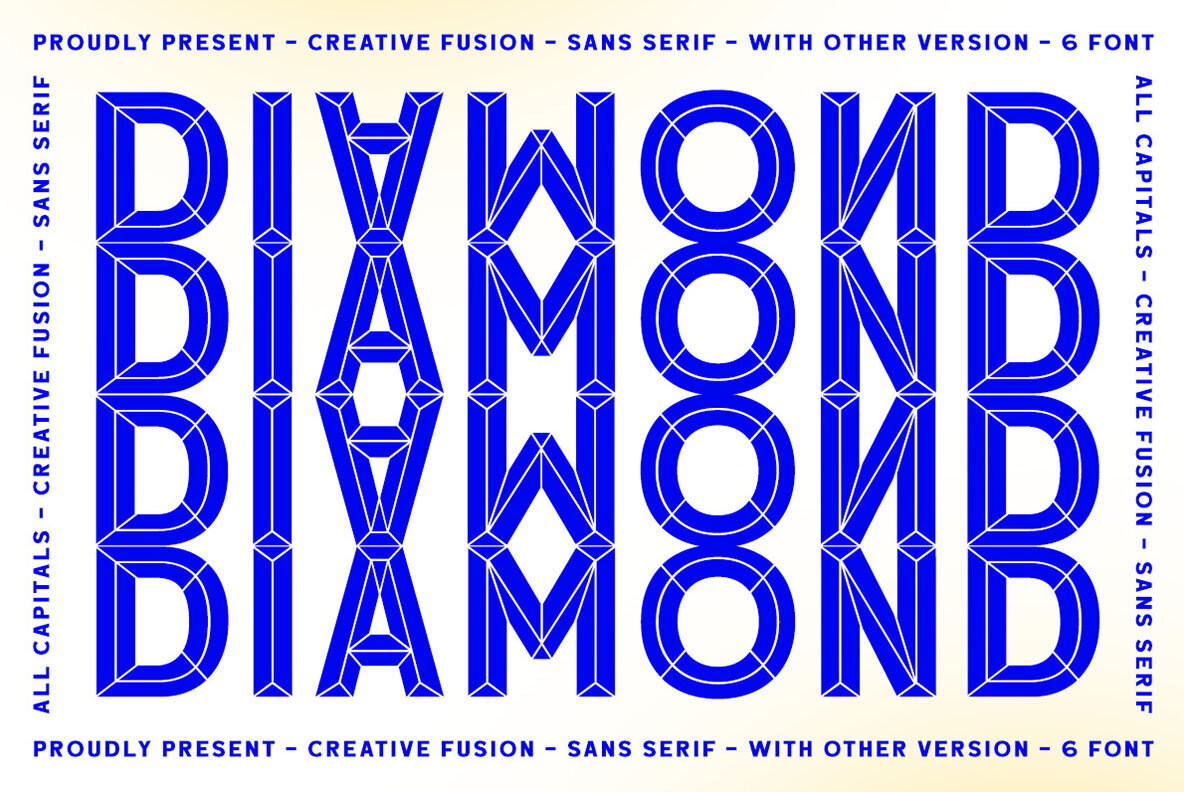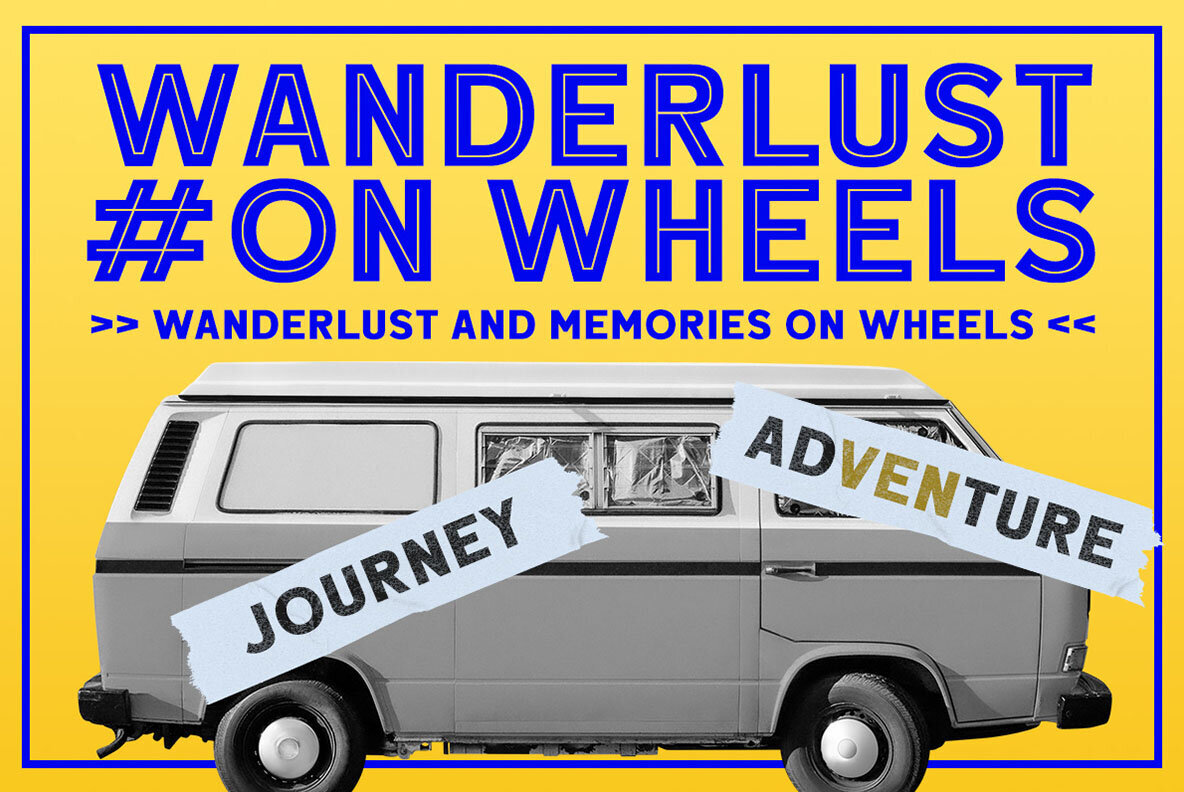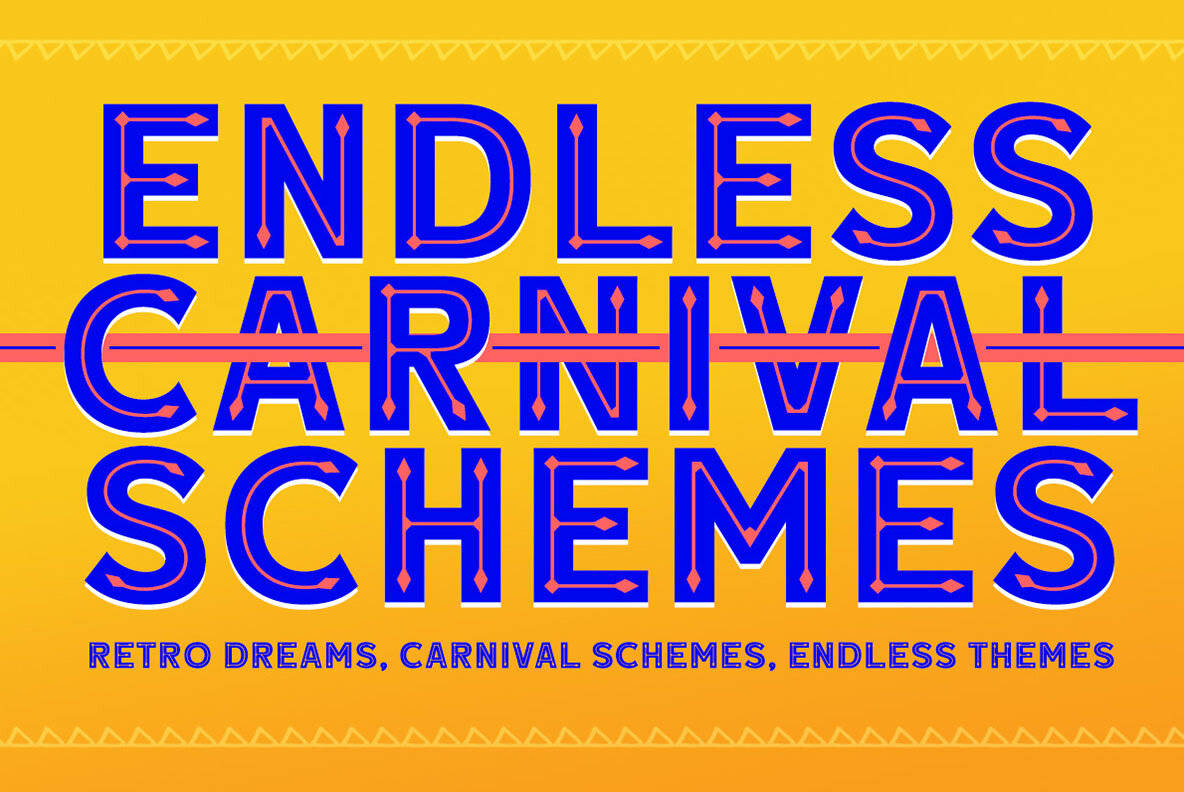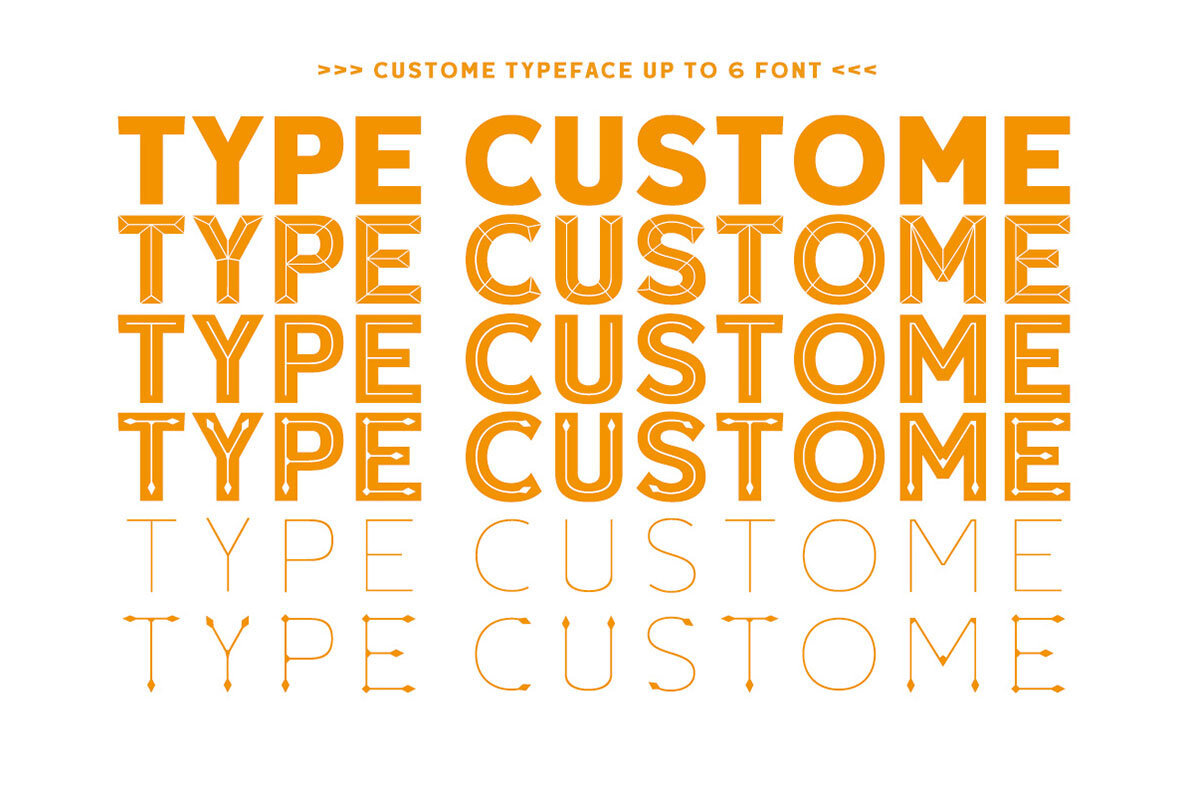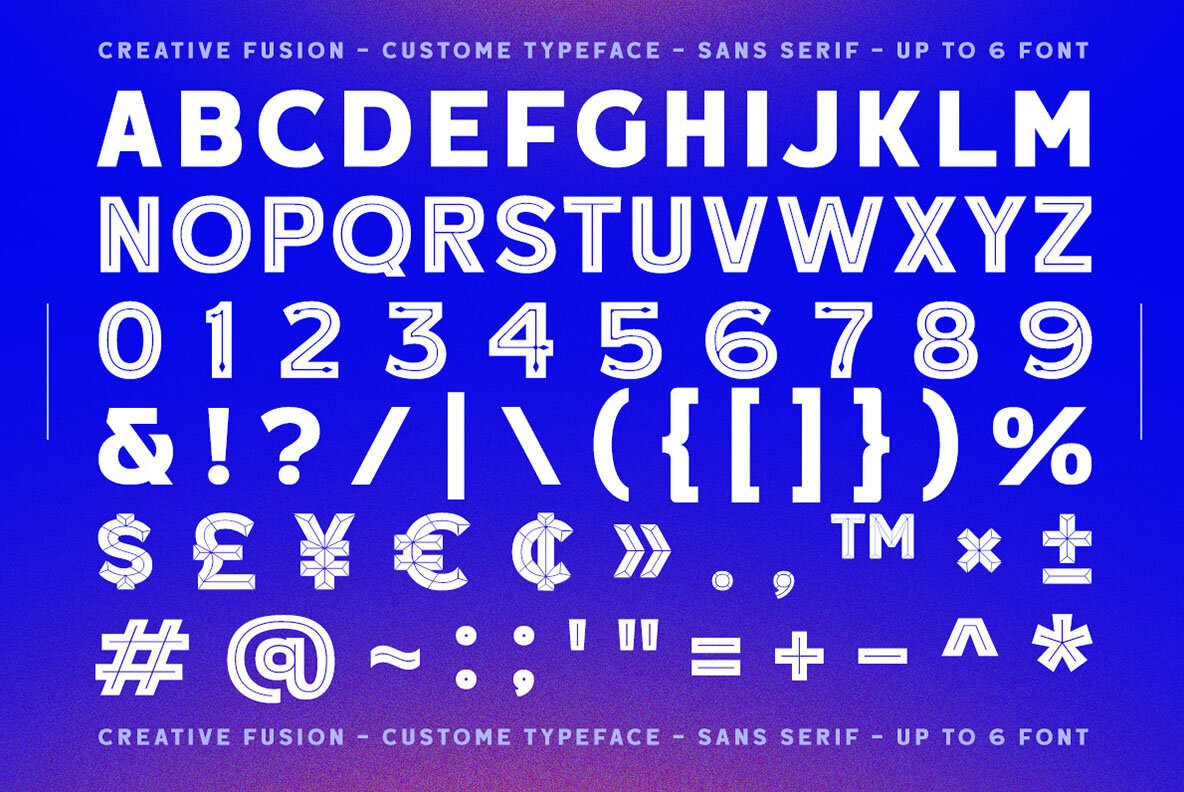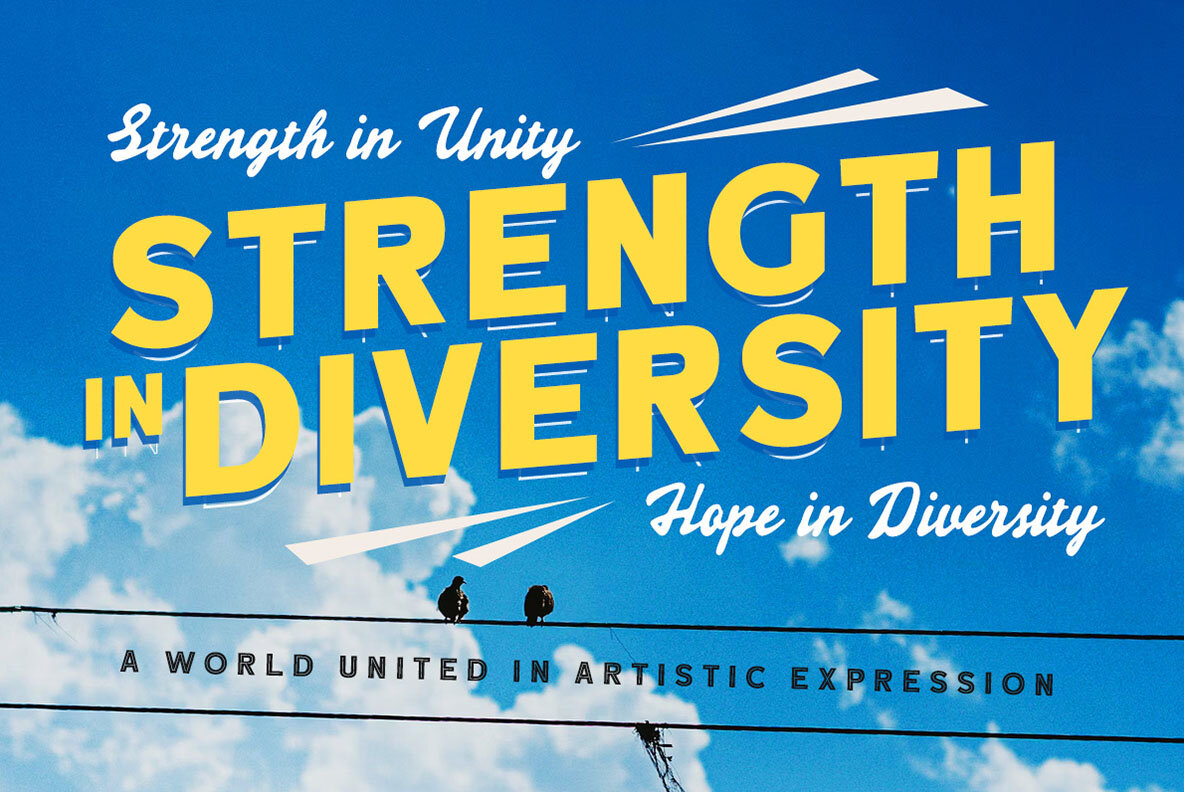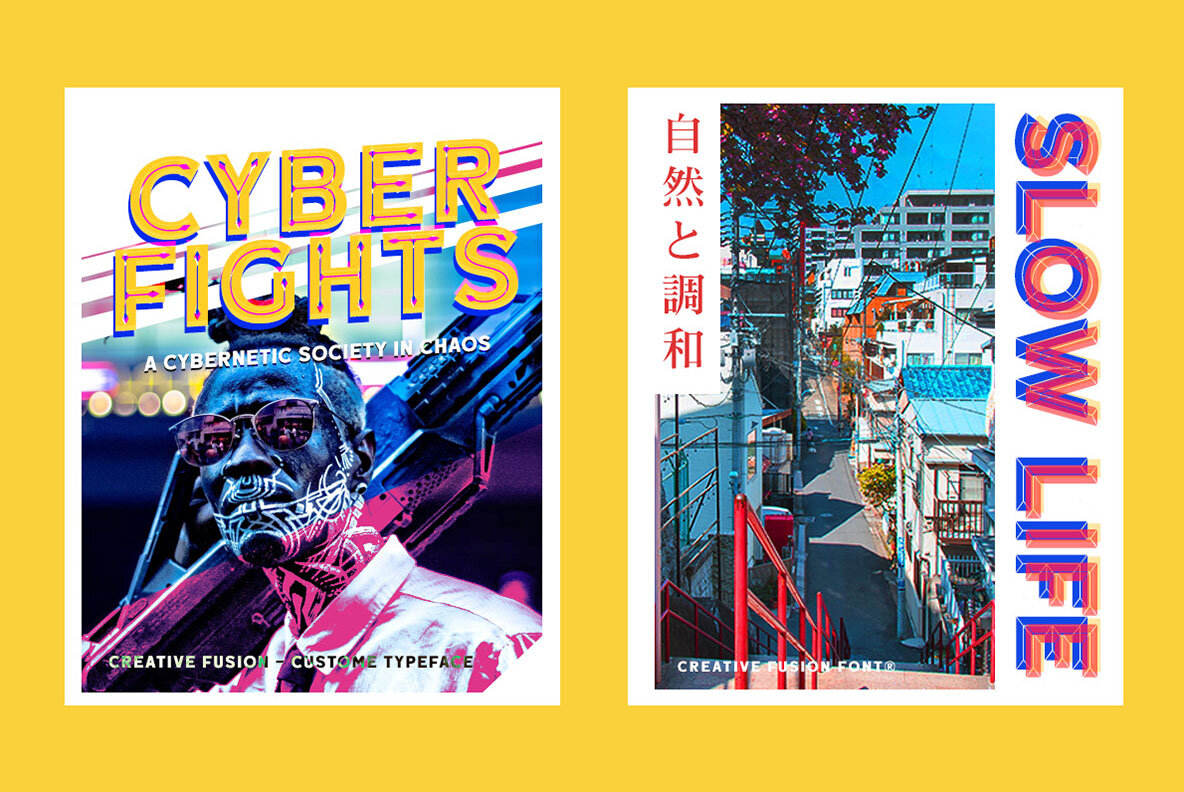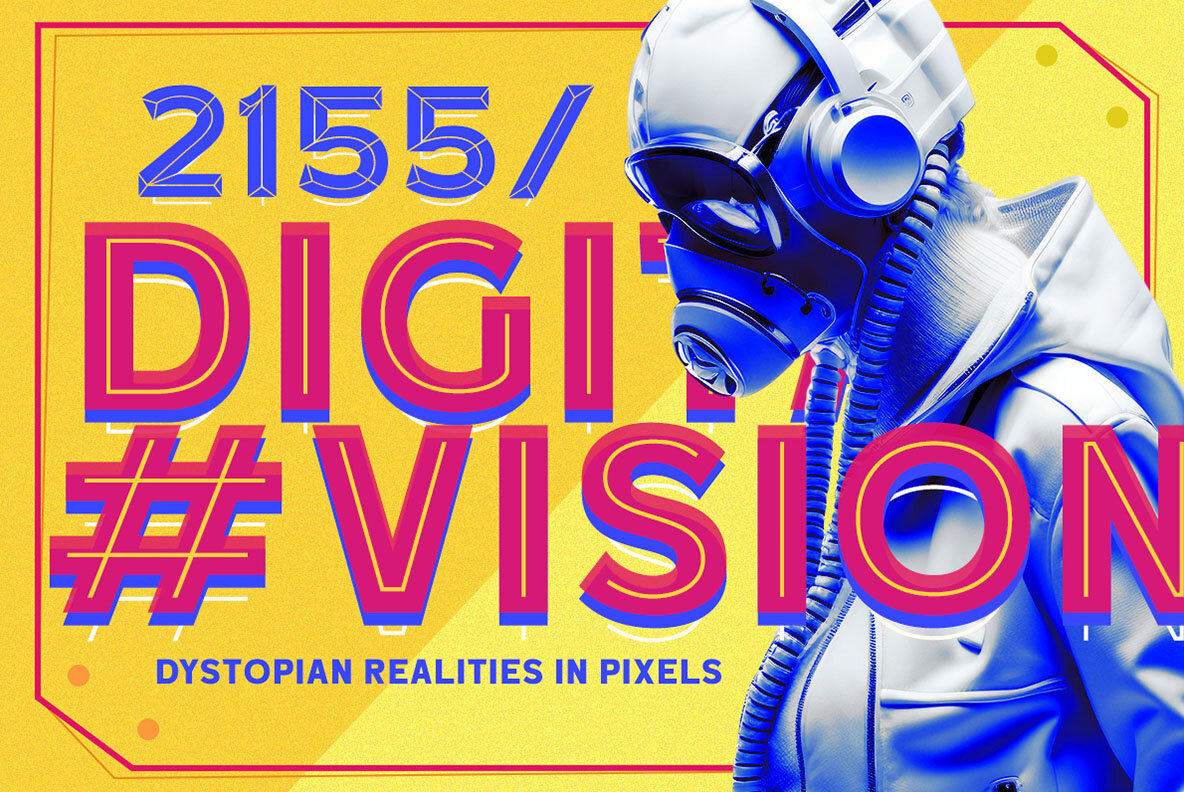
Creative Fusion Font
Custom Fusion by Letterhend Studio offers an innovative approach to typography with its distinct "inline" styles. This typeface brings versatility with six unique options in a single font, adapting to an array of design needs. Custom Fusion is ideal for a variety of applications, including logos, invitations, labels, magazines, books, greeting and wedding cards, packaging, fashion, stationery, novels, and advertising purposes. For optimal use, we recommend employing programs that support OpenType features and Glyph panels, such as Adobe apps and Corel Draw, to fully access all available glyph variations.Creative Fusion: A Custom Typeface With Inline Styles